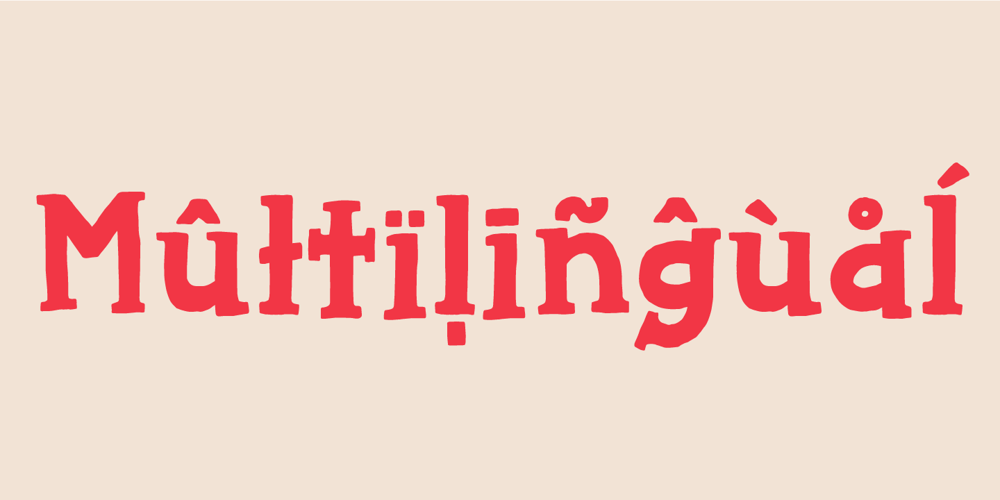
Chip Dip Font Family was designed by Jakob Fischer and published by PizzaDude.dk. Chip Dip contains 2 styles and family package options. A simple and uneven handmade brush seriffed font. Great for that extra dip your handmade looking designs need! ๐